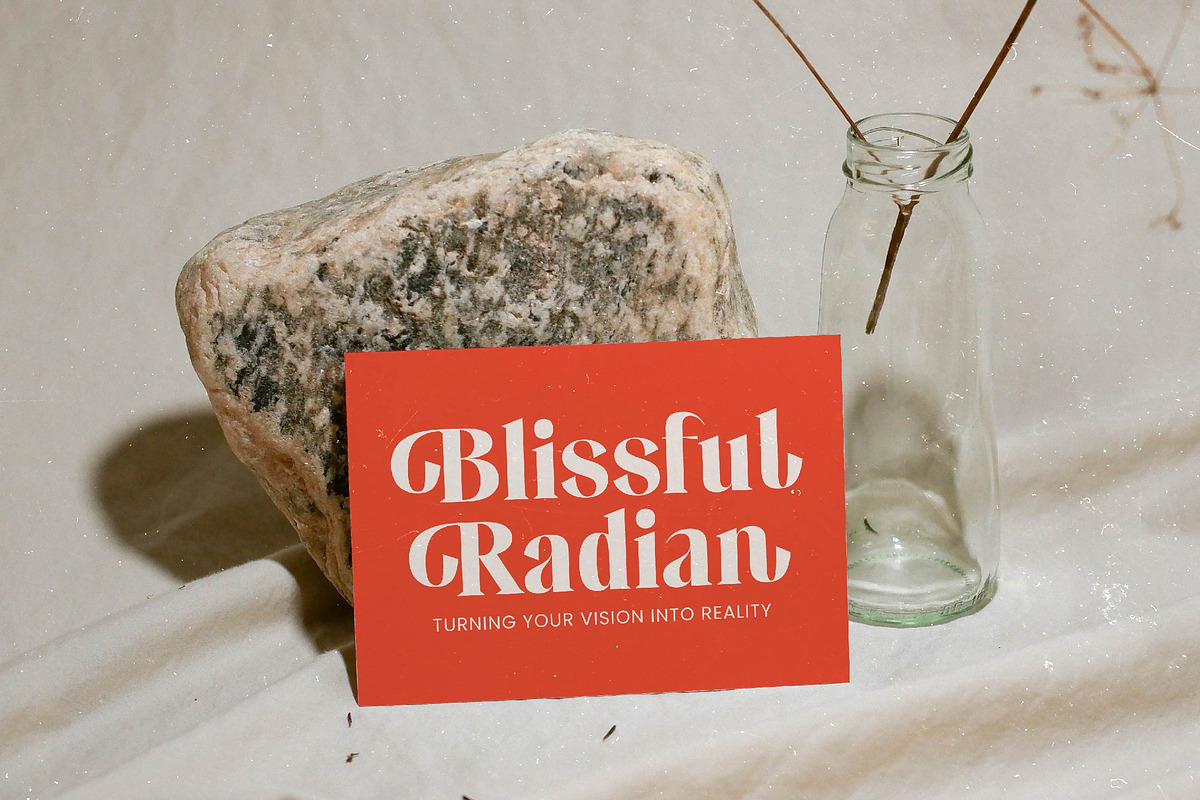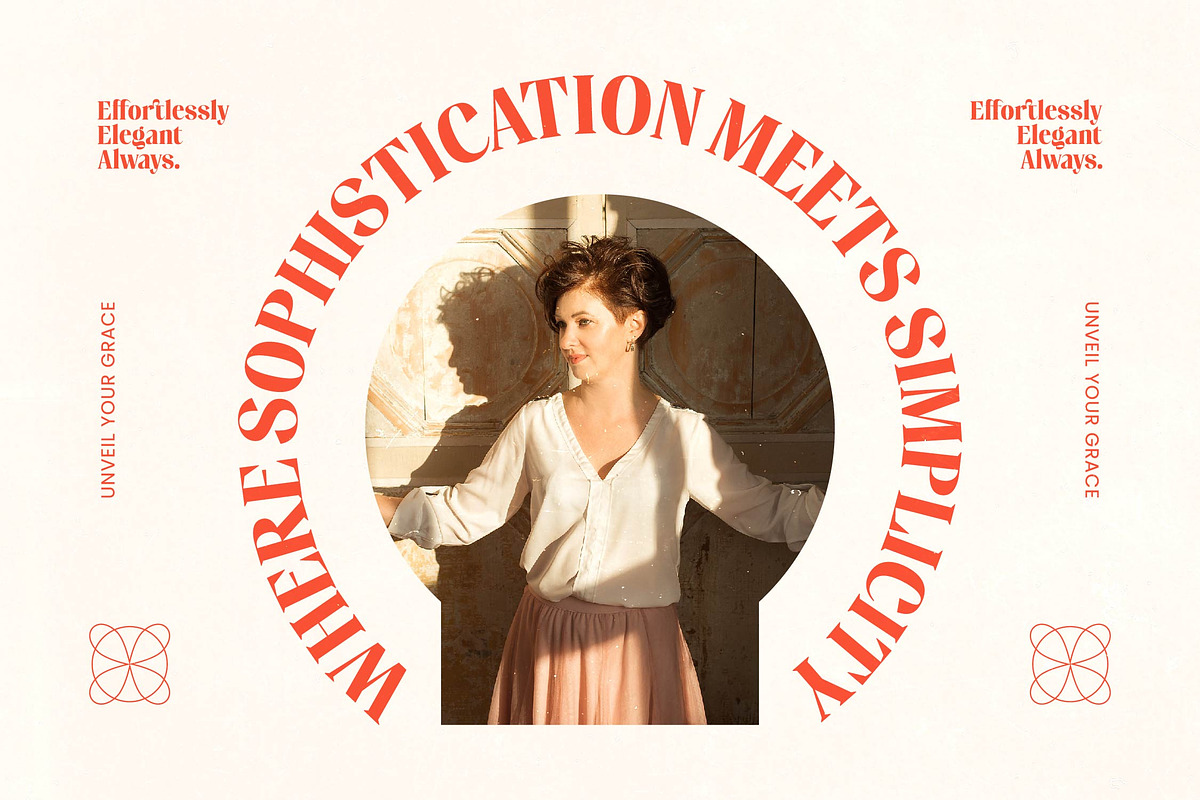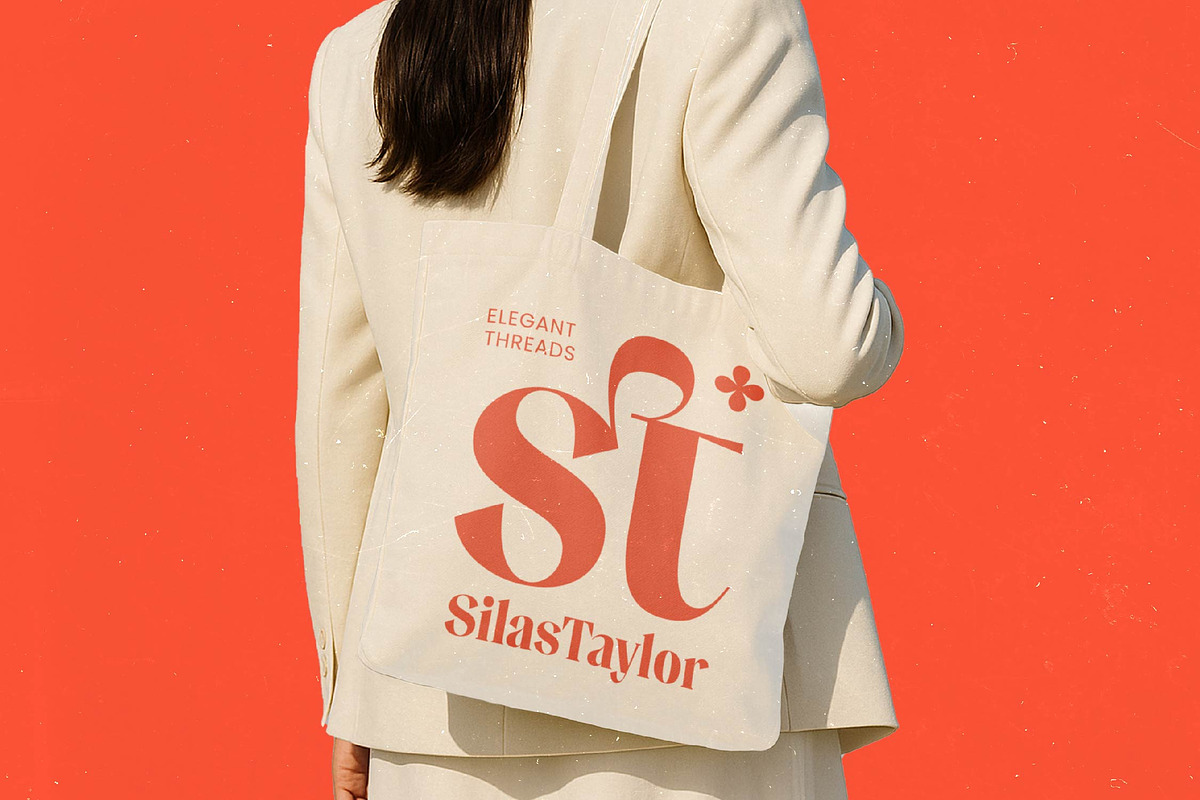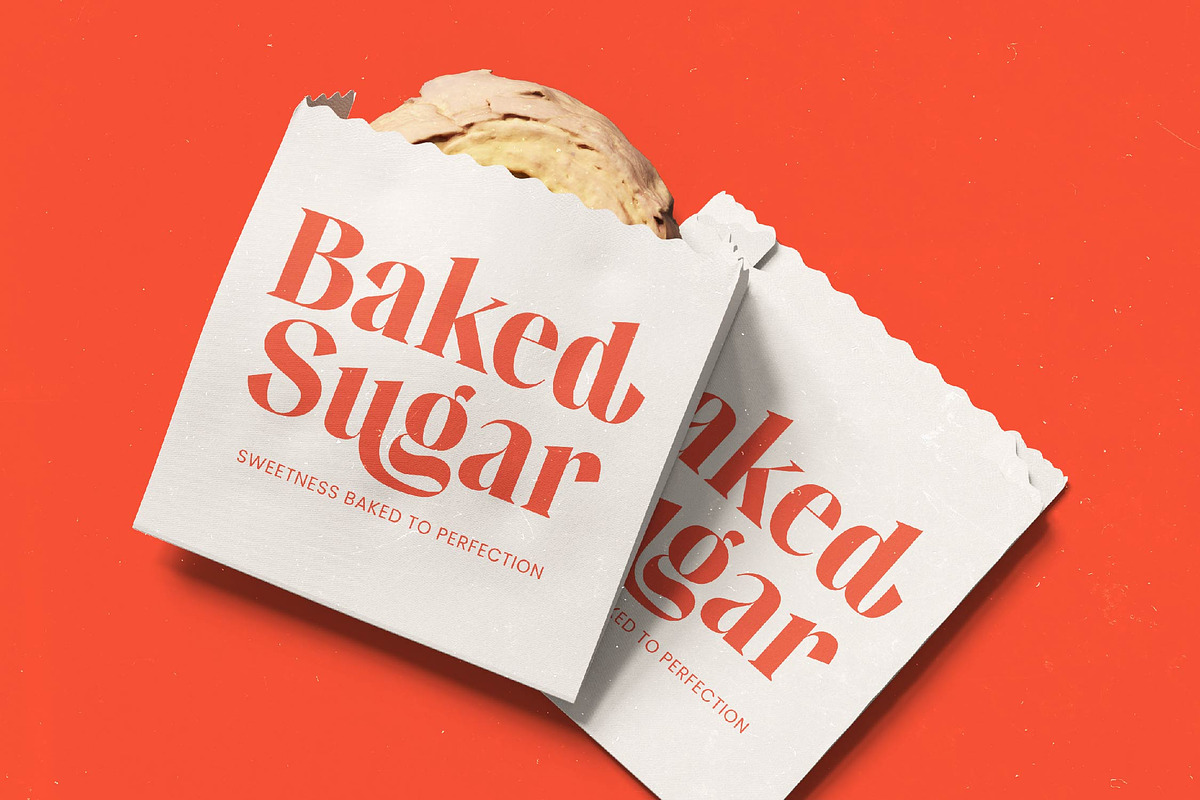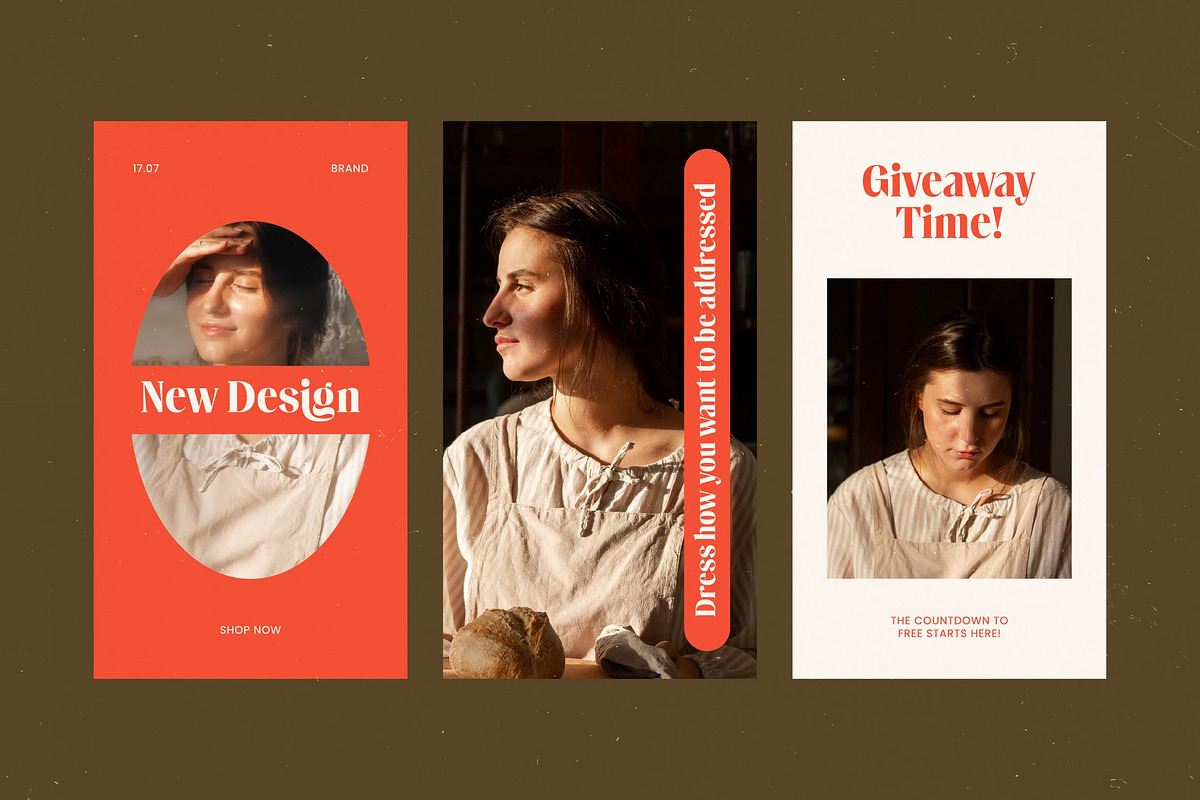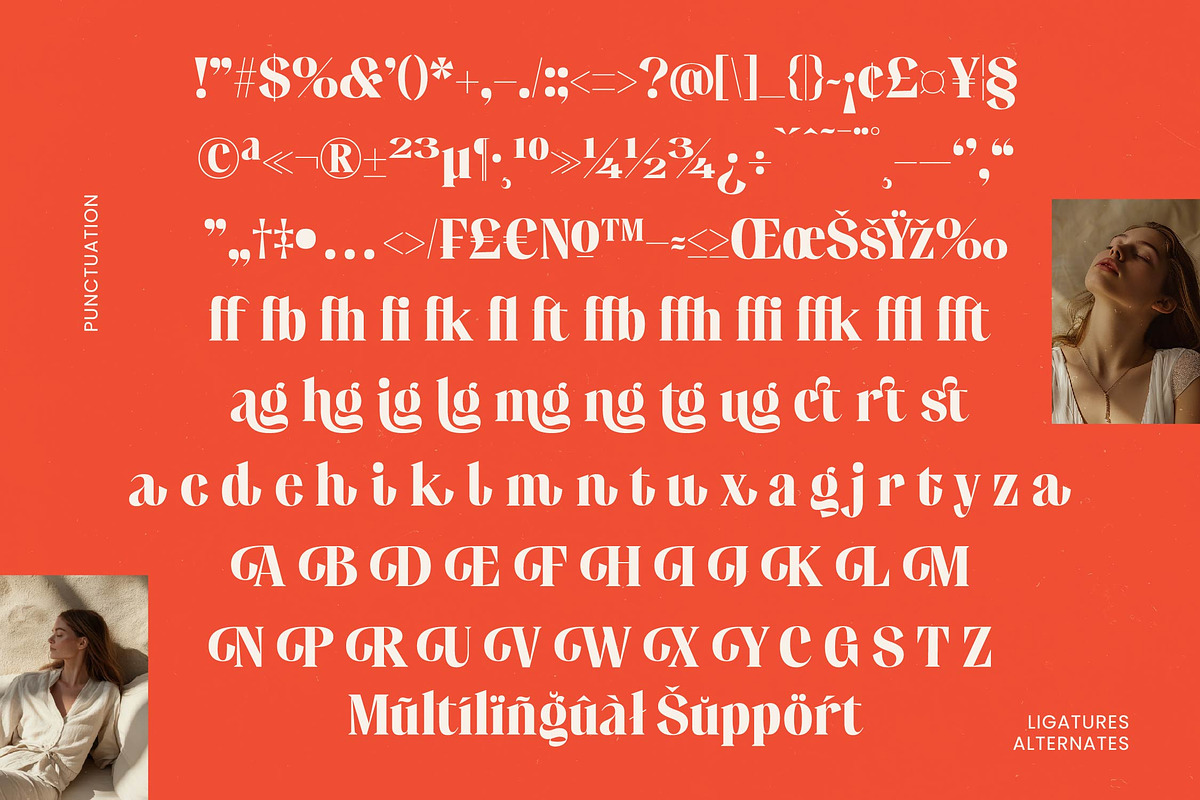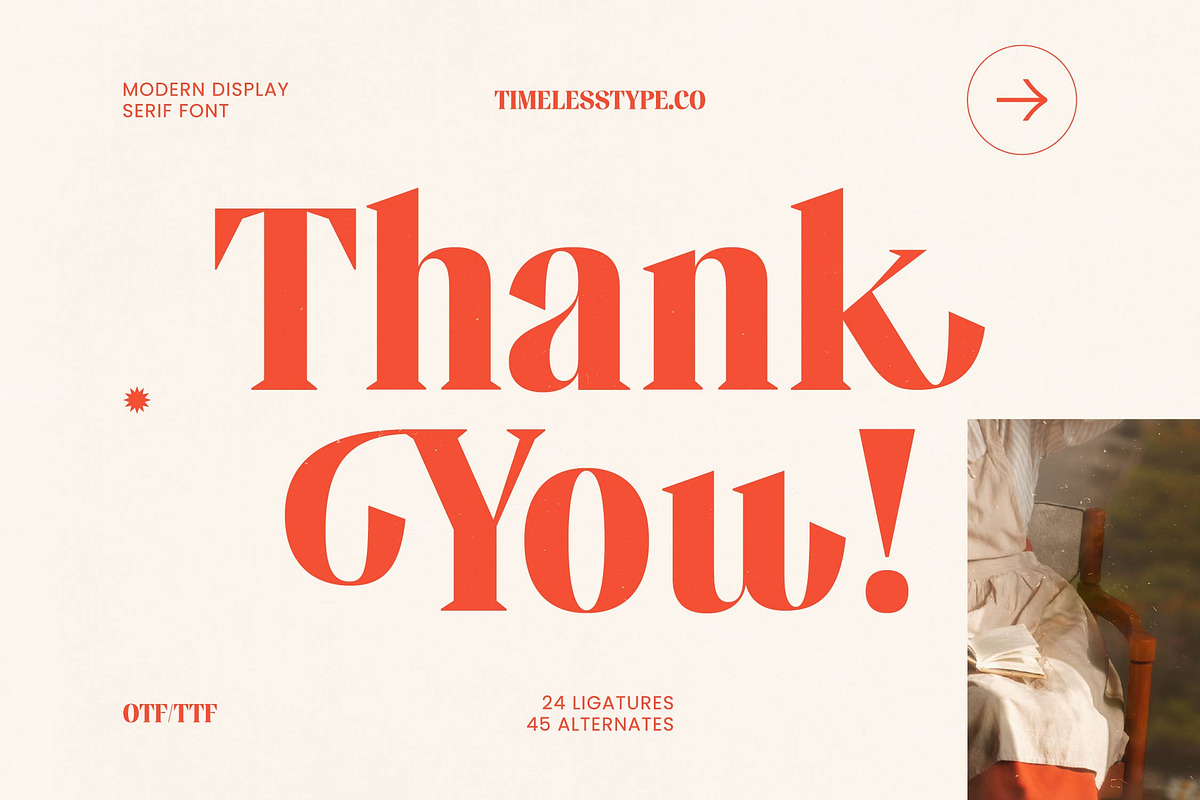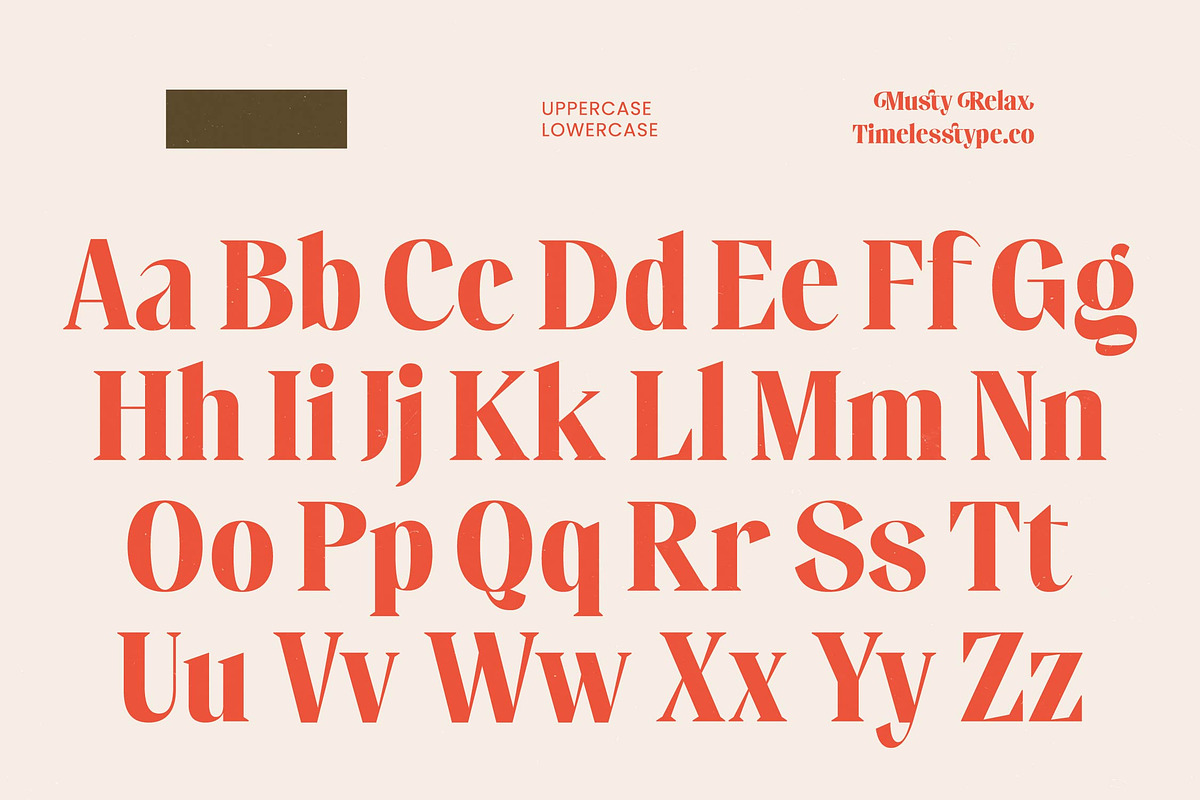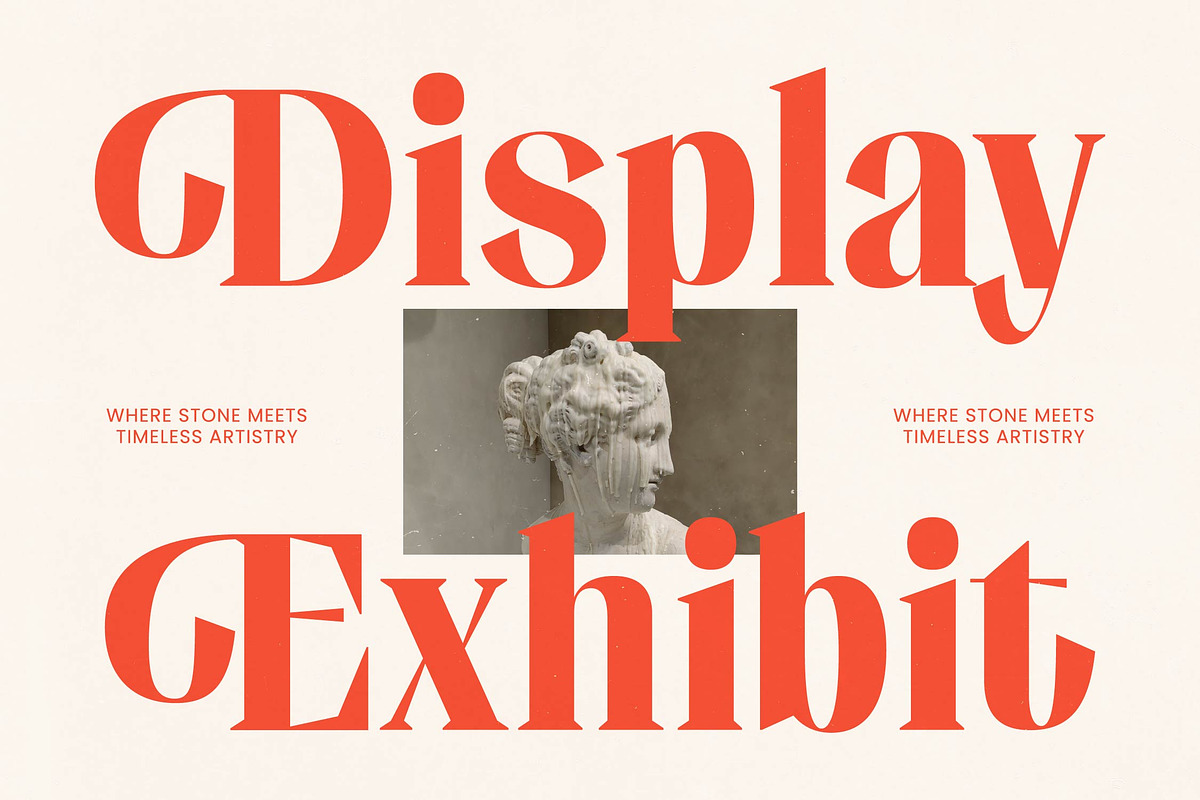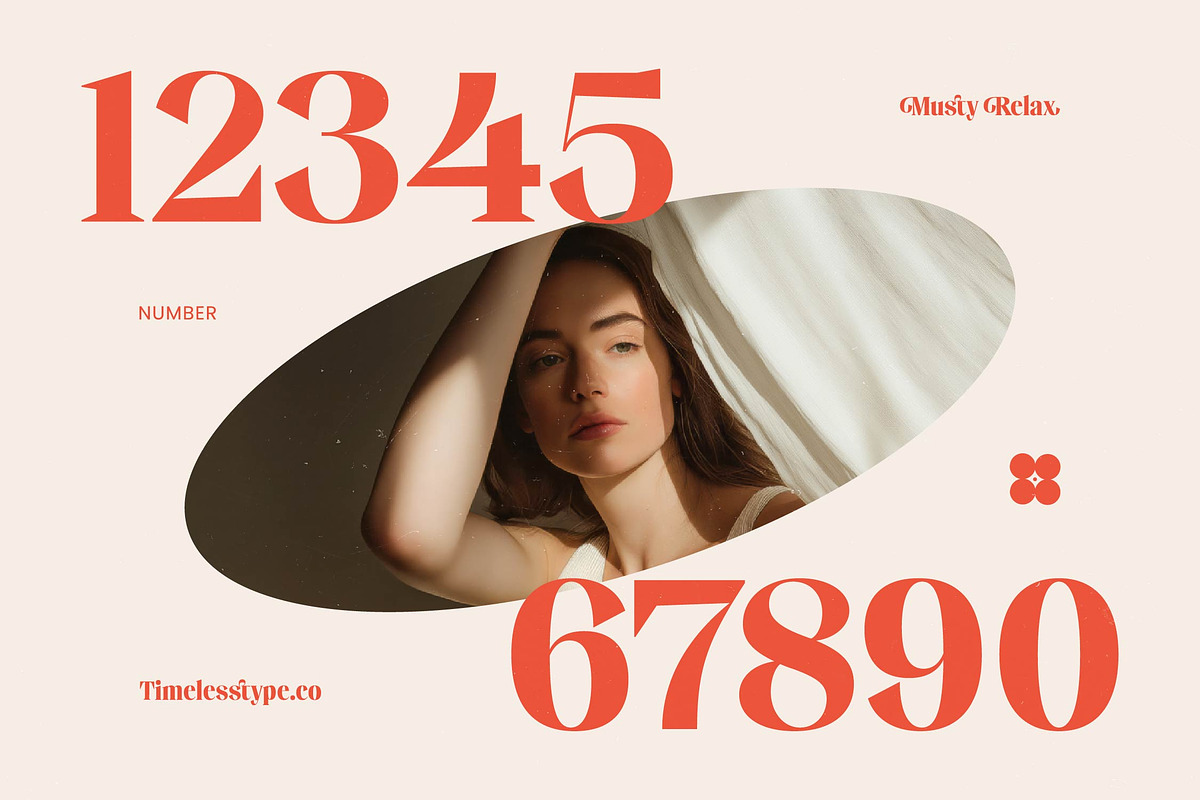
Musty Relax Modern Display Serif
Musty Relax - Modern Display Serif Font , Musty Relax is a masterclass in understated elegance, blending timeless serif structures with a fresh, contemporary soul. It invites a sense of calm sophistication into every layout, making your message feel both grounded and exceptionally chic.
Inspired by the rhythmic curves of mid-century high-fashion mastheads and the soft textures of vintage editorial spreads, this font captures a unique aesthetic of effortless grace. It evokes the feeling of a sun-drenched afternoon spent with a classic novel, where every letterform tells a story of quiet confidence.
With its modern serif display architecture, this typeface delivers a powerful branding impact through its striking high-contrast serif details. It is the ultimate luxury typography solution for designers seeking a refined editorial font that balances bold presence with delicate, character-rich flourishes.
Tapping into the current modern serif trend, this typeface stands out among editorial display fonts by offering a more organic, character-driven typography experience. It perfectly aligns with the shift toward nostalgic yet clean aesthetics that dominate high-end visual storytelling today.
This versatile typeface is the ideal choice for high-end logo design, cohesive branding systems, and sophisticated editorial layouts. Whether applied to luxury packaging, romantic wedding stationery, or avant-garde fashion lookbooks, it ensures your project exudes premium quality.
To provide maximum creative flexibility, the package includes an extensive collection of ligatures and alternates that allow for bespoke letter pairings. It also features full multilingual support and international characters, ensuring your designs speak a global language of style.
Numerals
Punctuations (OpenType Standard)
Accents (Multilingual Characters)
Ligatures and Alternative Style Stylistic Set